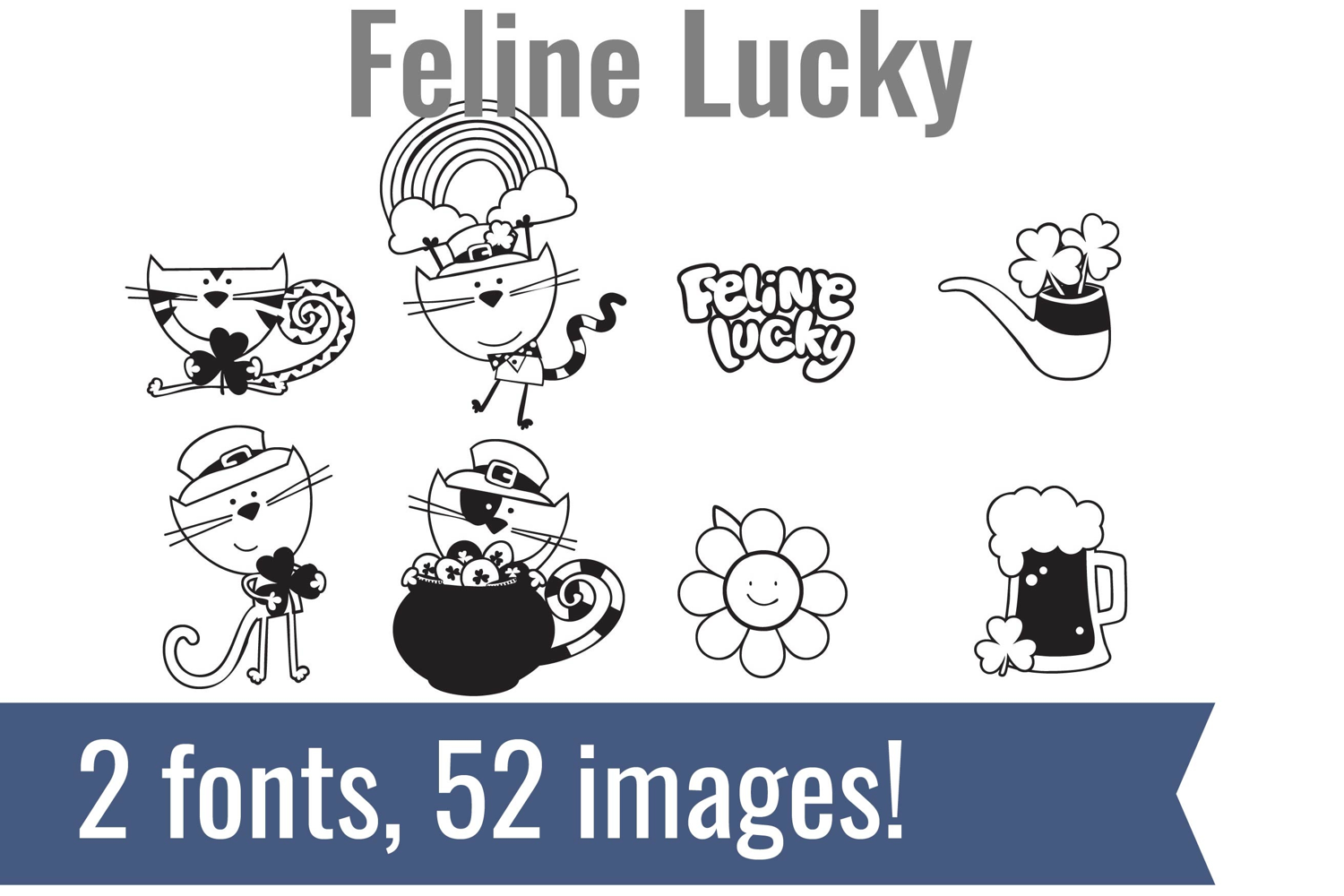
Feline Dingbats
Unlock endless creativity with two perfectly coordinated dingbat fonts! There are two dingbat fonts in this bundle, featuring the cutest, cat images and groovy (retro-style) images.